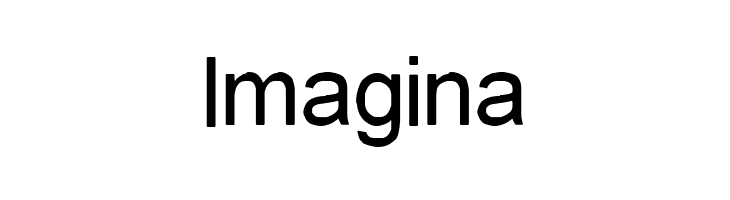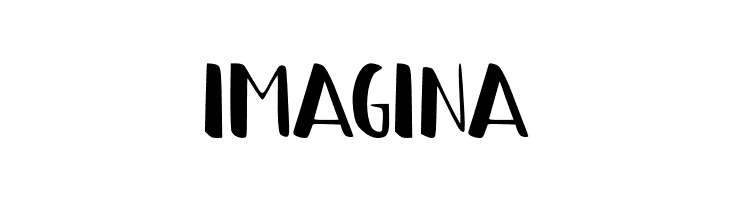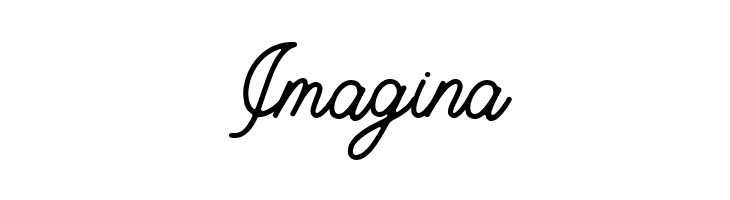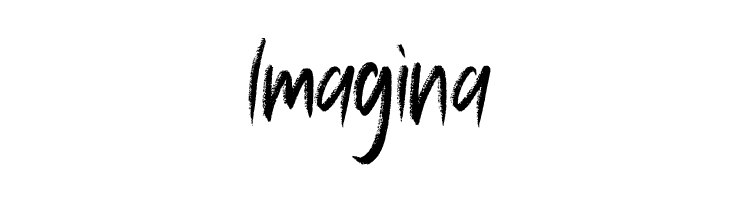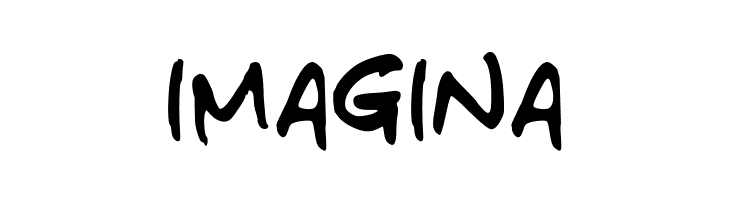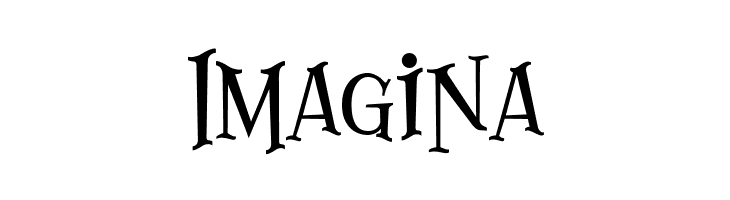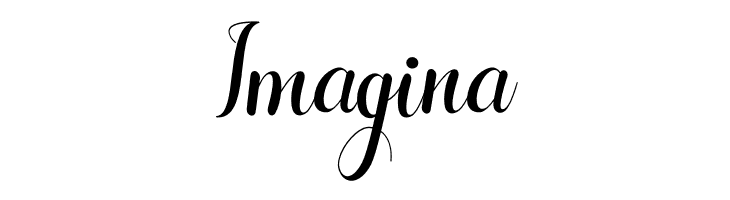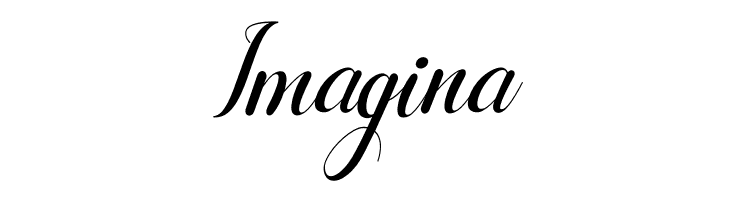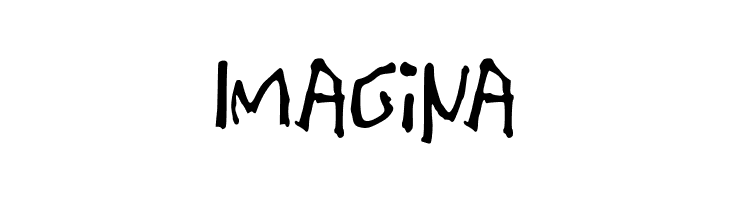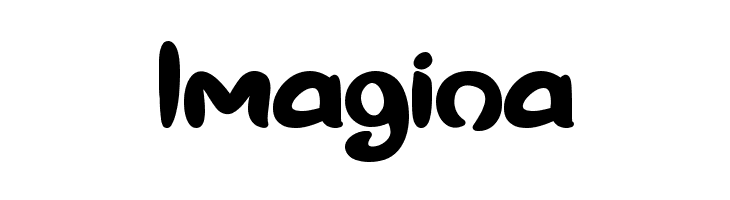
A clean, modern sans-serif font with consistent stroke width and excellent readability.
An elegant script font with ornate, flowing letterforms.
An elegant, cursive font with intricate flourishes and sweeping curves.
A flowing, cursive script font with elegant loops and swashes.
A medieval-inspired font with angular serifs and a hand-crafted look.
A bold, hand-drawn font with a textured, sketch-like appearance.
A bold, playful, hand-drawn font with rounded, organic shapes.
A bold, hand-drawn font with a playful and artistic style.
A playful, hand-drawn font with bold outlines and a whimsical style.
A futuristic, geometric font with bold, tech-inspired letterforms.
A futuristic, geometric font with smooth curves and bold lines.
A bold, brush-style font with dynamic and expressive strokes.
An elegant script font with flowing, cursive letterforms and intricate swashes.
A playful, bold, and hand-drawn font with a whimsical style.
A cursive, handwritten-style font with elegant loops and swashes.
A bold, playful handwritten font with rounded, consistent letterforms.
A bold, playful handwritten font with rounded strokes and a casual style.
A quirky, hand-drawn font with tall, narrow characters and a playful style.
A playful, handwritten font with smooth, rounded edges and a casual vibe.
A bold, playful handwritten font with dynamic strokes.
A bold, dynamic handwritten font with expressive, flowing strokes.
A playful, handwritten font with irregular strokes and a casual, artistic style.
A playful, hand-drawn font with an informal and artistic style.
A playful, handwritten font with rounded, consistent strokes.
A dynamic, brush-style font with a lively, handwritten appearance.
A bold, expressive script font with flowing, cursive letterforms and high contrast.
A bold, expressive script font with flowing, interconnected characters.
A playful, casual handwritten font with rounded, irregular letterforms.
A bold, condensed font with a shadow effect for impactful designs.
A bold, hand-drawn font with a playful, italic style.
A playful, bold font with rounded, thick strokes and a friendly appearance.